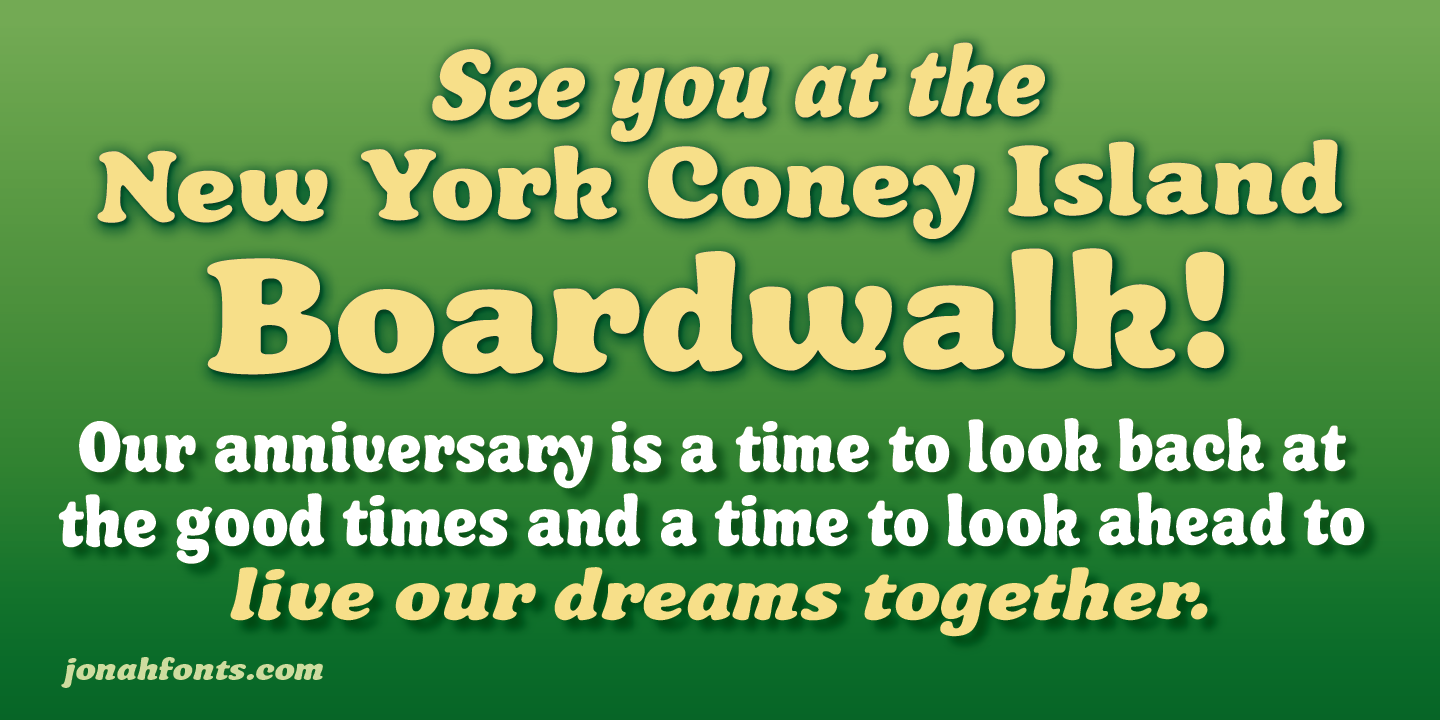
Boardwalk Font Free Download
The Boardwalk Font is perfect for beachside restaurant menus, coastal vacation branding, seaside event invitations, pier attraction signage, nautical themed designs, summer festival posters, beach resort logos, and ocean-inspired marketing materials. This distinctive typeface brings authentic coastal charm and seaside nostalgia to designs celebrating waterfront leisure and boardwalk culture.
What makes Boardwalk Font so exciting is its ability to capture the relaxed, carefree spirit of seaside boardwalks through weathered yet elegant letterforms that evoke memories of salt air, wooden planks, and endless summer days. The font perfectly balances rustic charm with modern readability, making it ideal for brands seeking to connect with audiences through coastal lifestyle aesthetics.
The Boardwalk Font family includes regular, condensed, and distressed variations, providing designers with comprehensive options to create authentic seaside typography that maintains the laid-back boardwalk atmosphere across various design applications and coastal-themed projects.
Whether you're developing beachfront business identities, designing vacation marketing campaigns, or creating nostalgic summer content, the Boardwalk Font Free Download delivers exceptional coastal character for waterfront-inspired projects. This captivating typeface helps designers evoke the timeless appeal of seaside destinations and boardwalk memories.